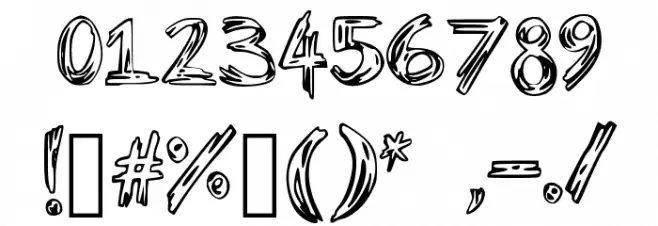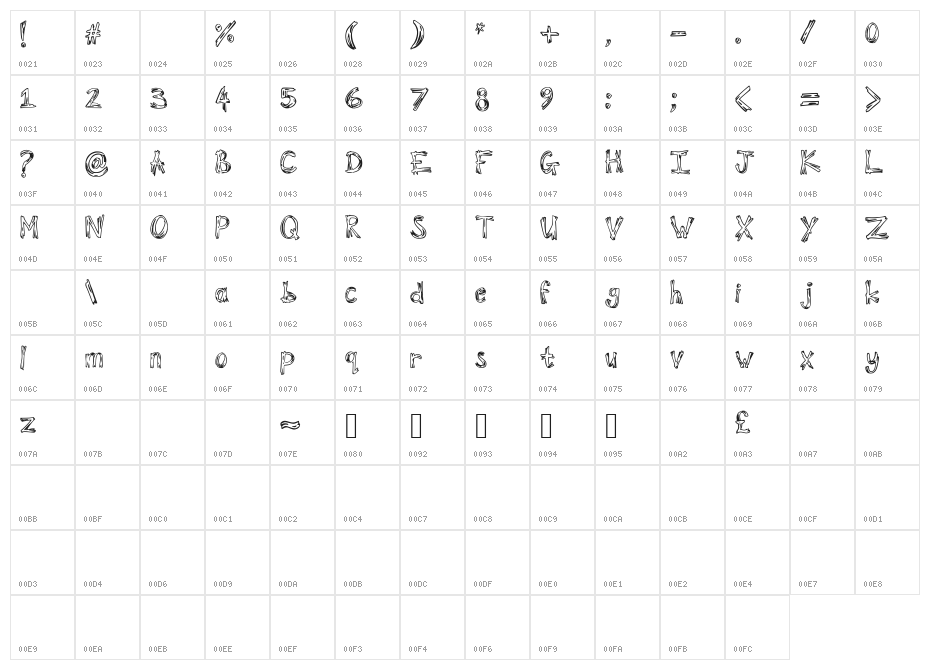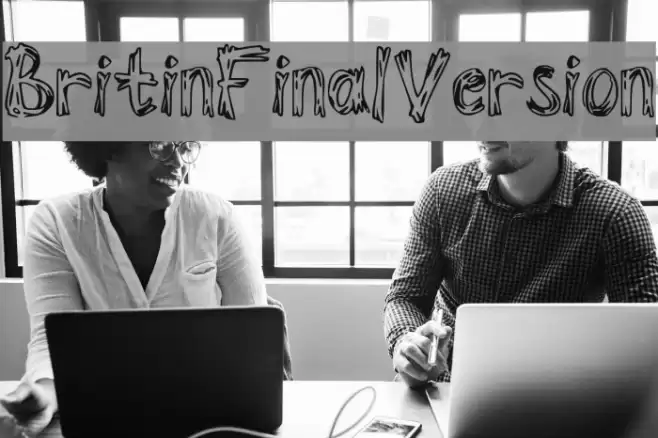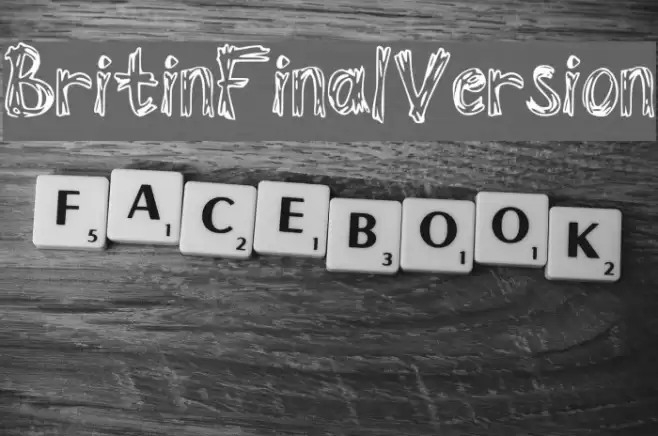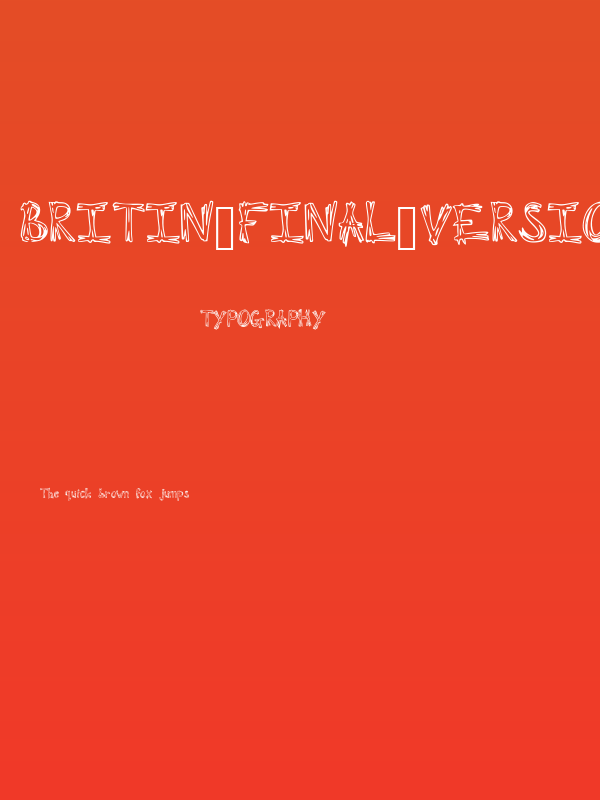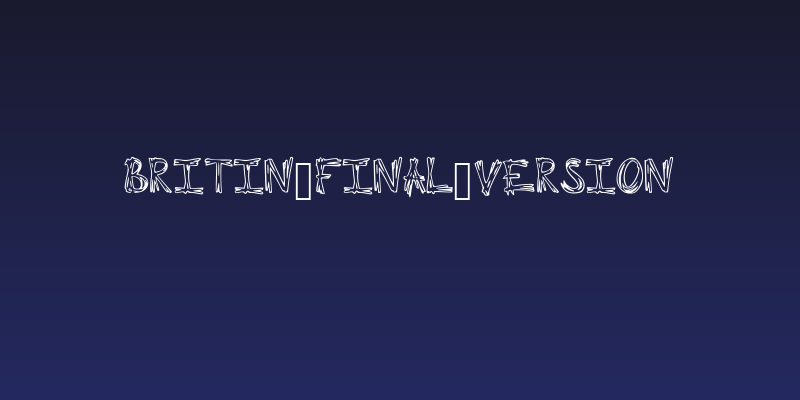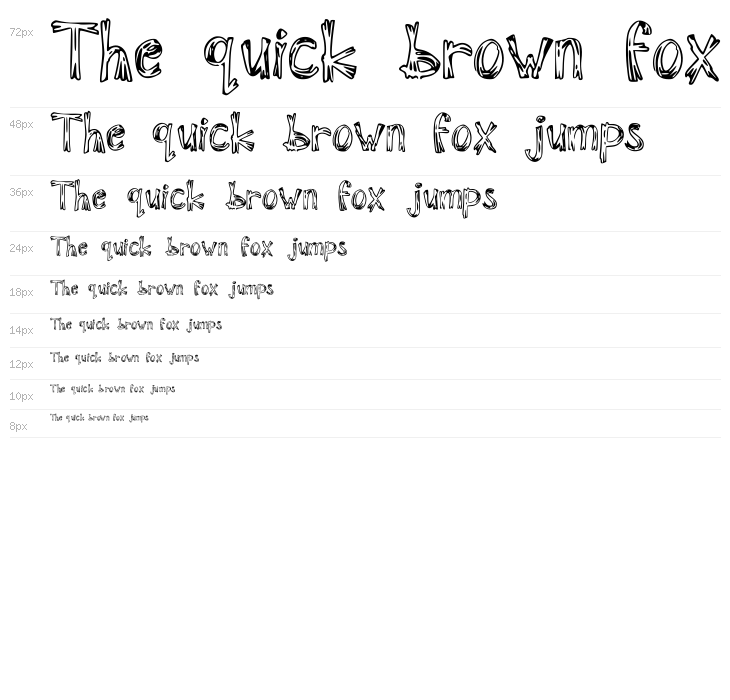
Britin_Final_Version Font
Britin_Final_Version Description
This font features a bold, playful design with a hand-drawn aesthetic. Each character is outlined with a thick, uneven stroke that gives it a dynamic and energetic feel. The letters have a slightly irregular shape, adding to the whimsical and informal style. The font includes both uppercase and lowercase letters, numbers, and a variety of special characters. Its unique appearance makes it stand out, perfect for creative and artistic projects. The overall look is reminiscent of graffiti or street art, with a touch of cartoonish flair.
| Overall Style | Playful, Artistic, Whimsical |
| Proposed Projects | Ideal for posters, children's books, comic strips, and creative branding. |